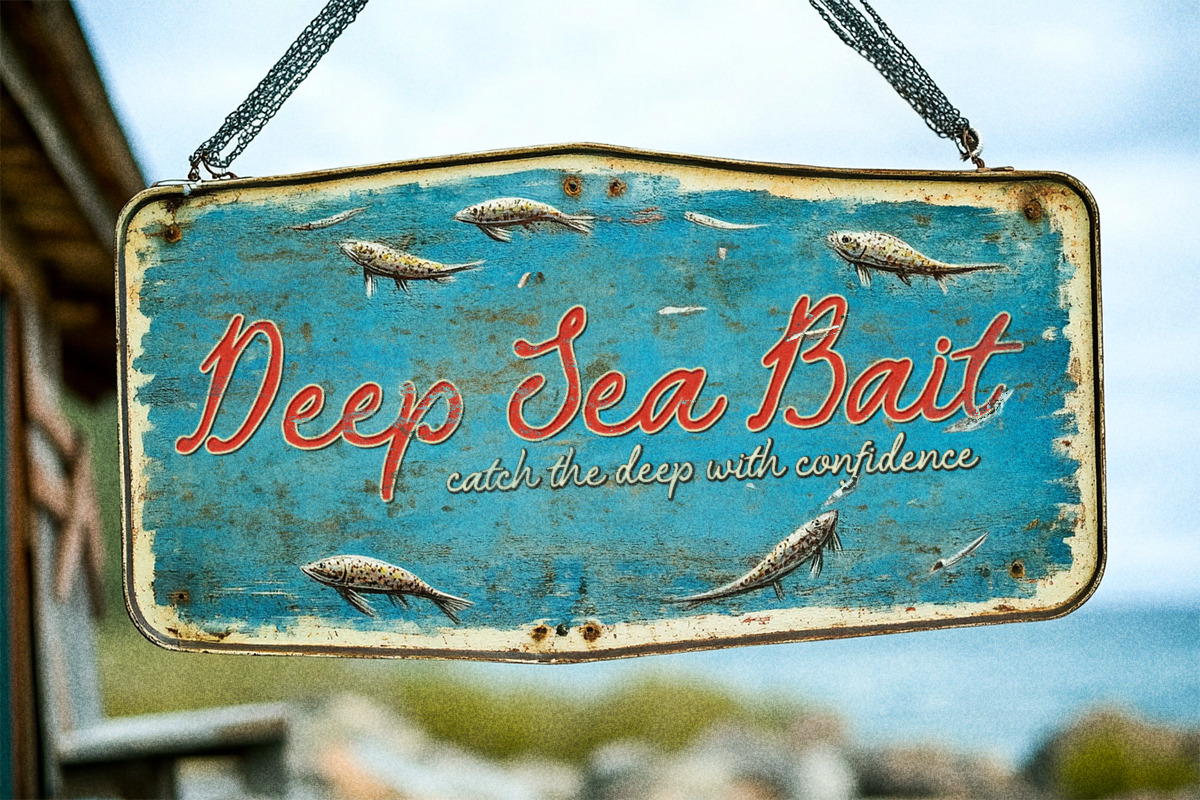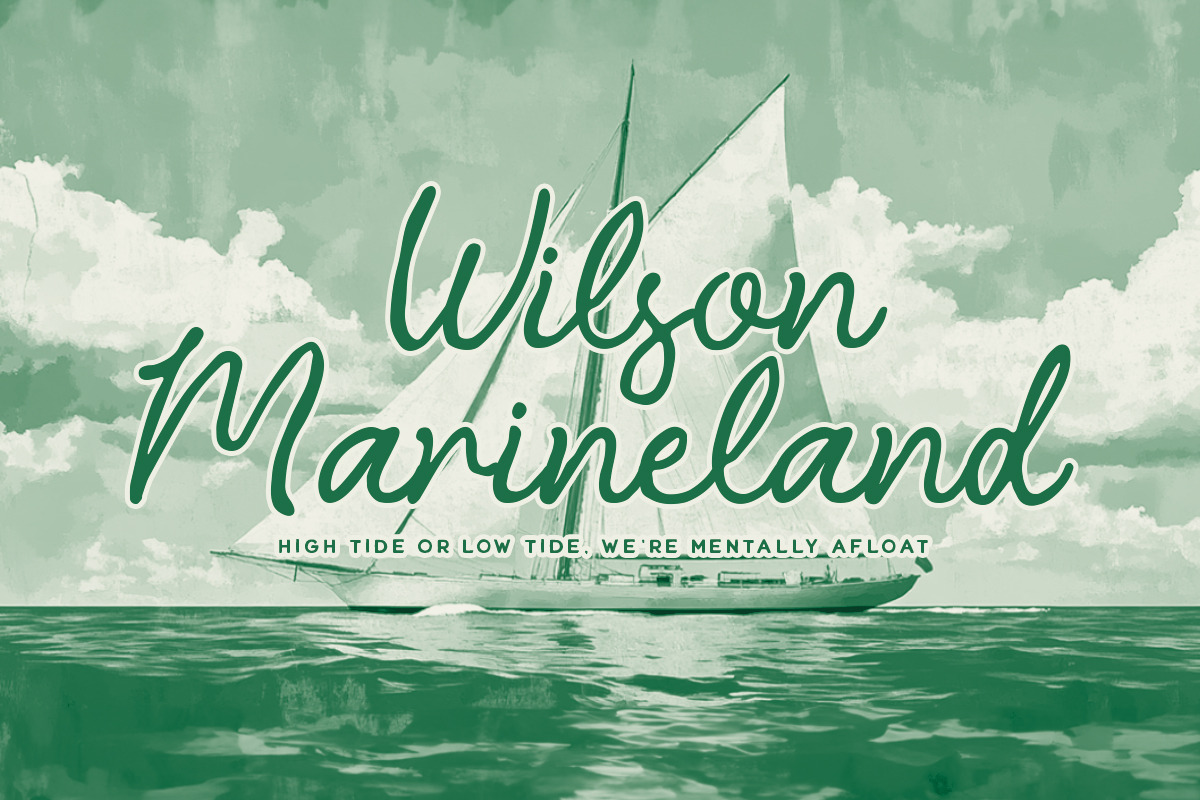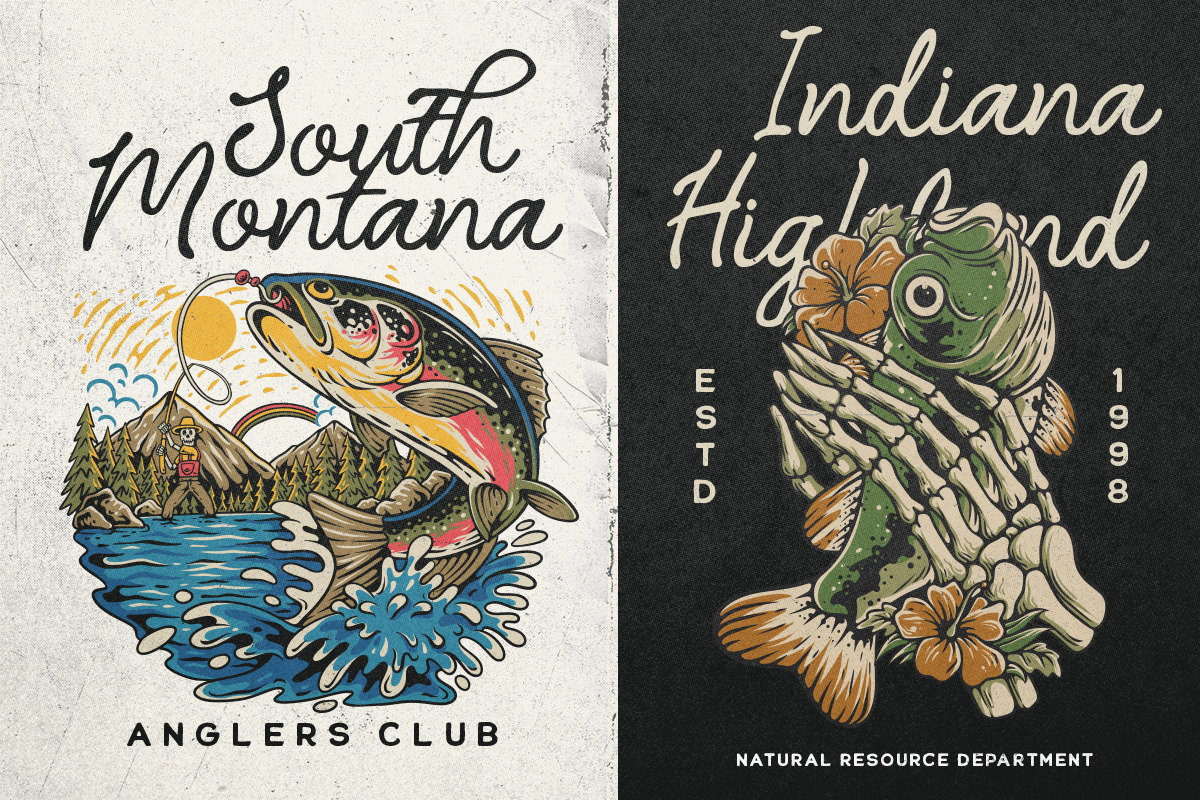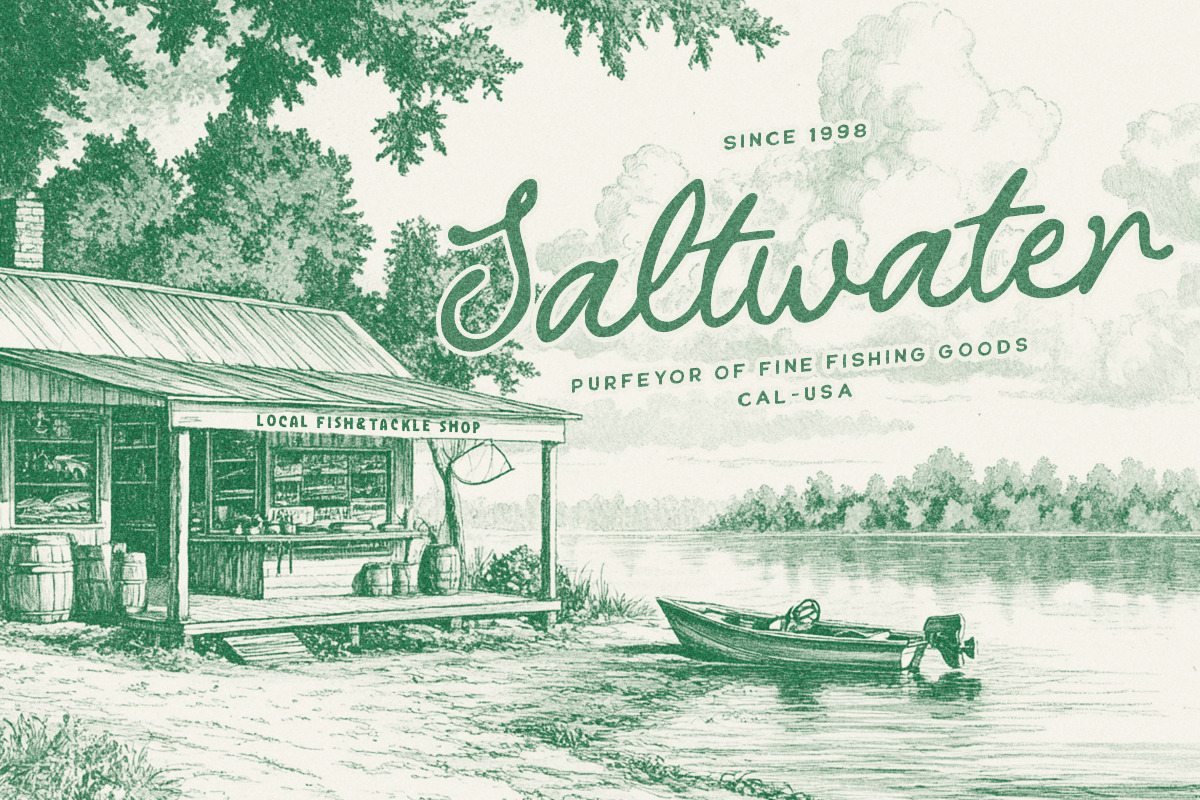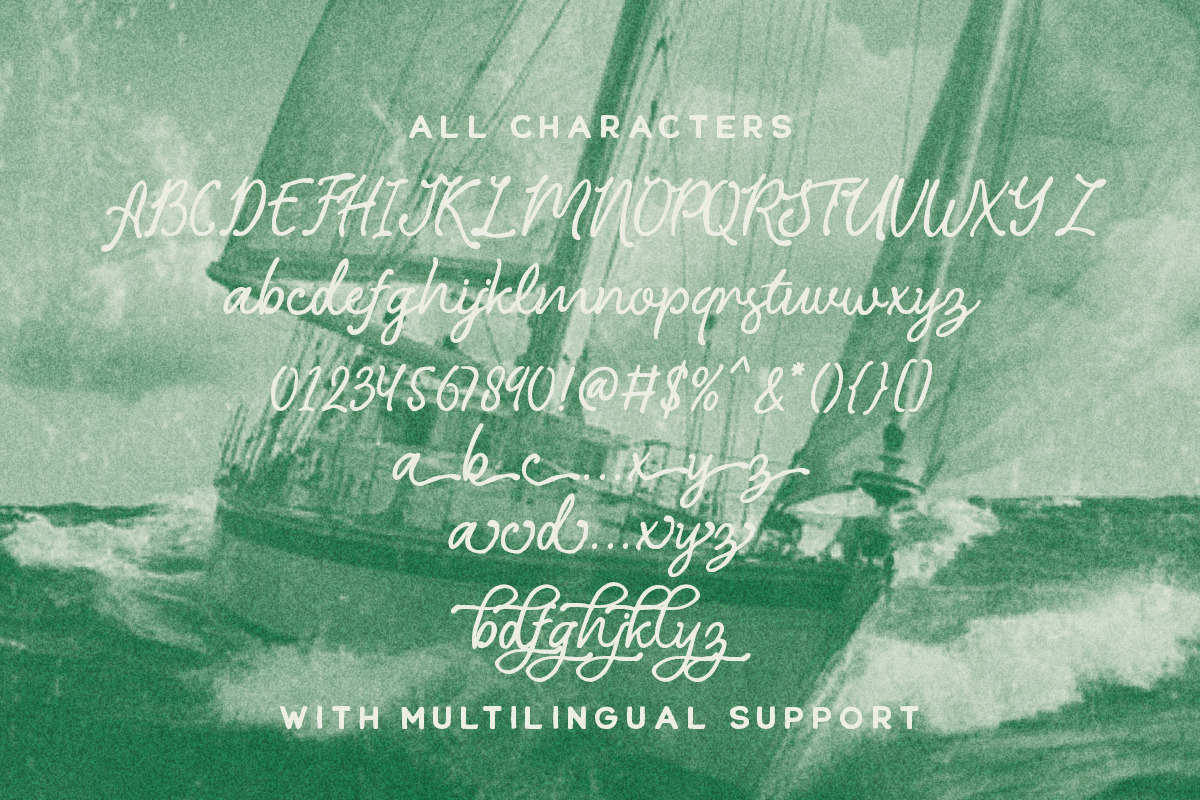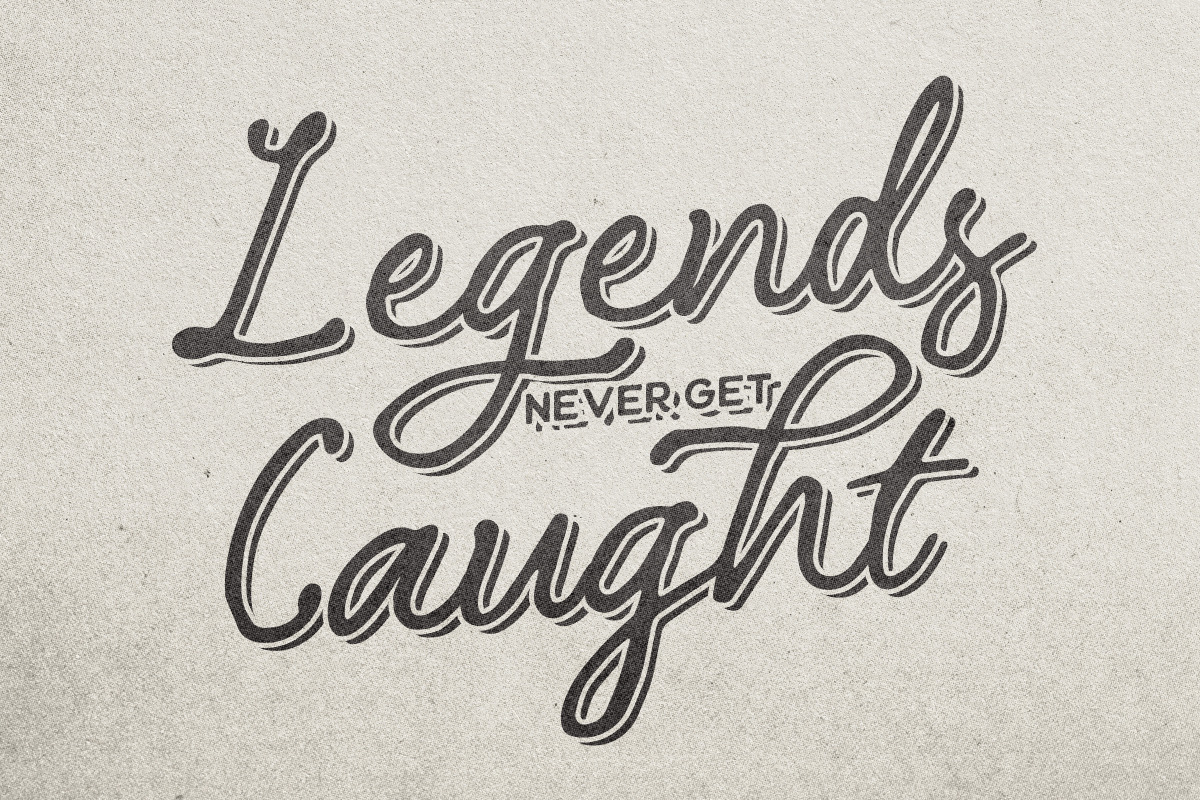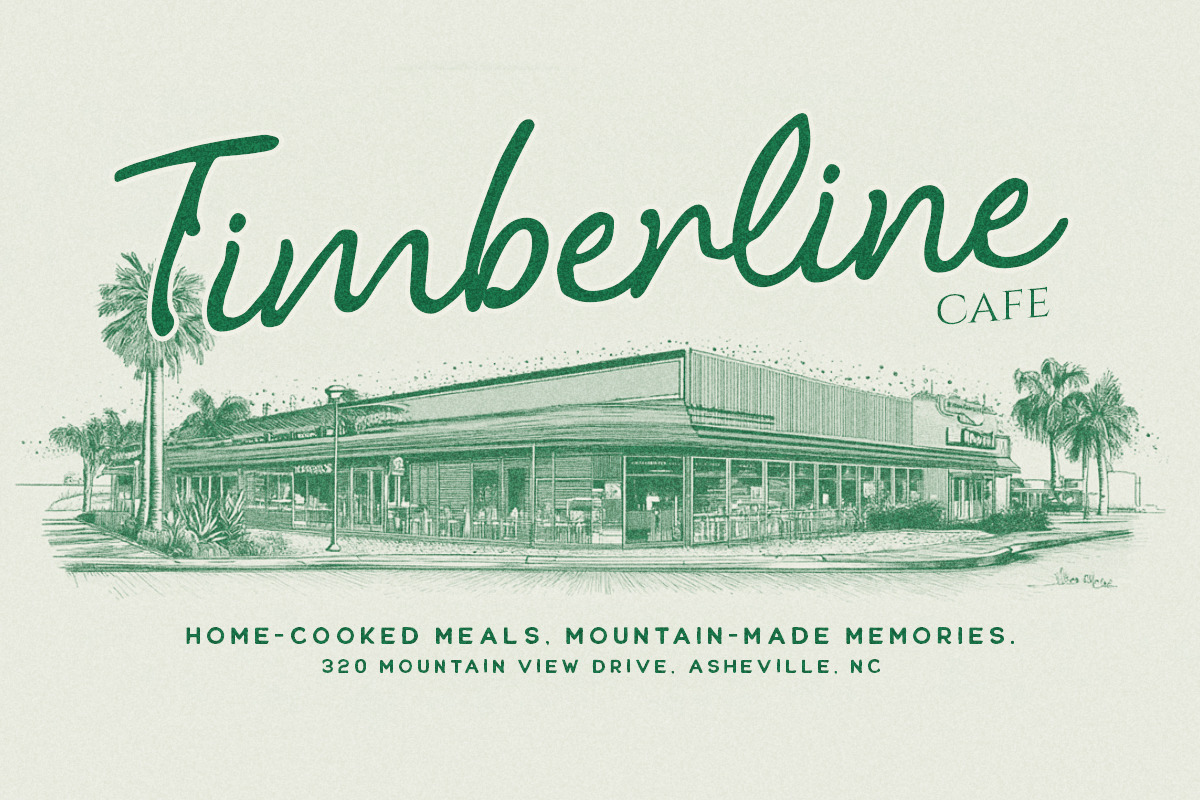
Rodlock Script
Rodlock is a vintage organic script font that captures the essence of retro charm with a natural, hand-drawn feel. Perfect for projects that need an authentic, nostalgic touch, Rodlock brings warmth and character to branding, logos, packaging, and more. Its flowing script lines blend organic curves with vintage style, making it a versatile choice for anything from artisanal product labels to retro-inspired graphics. Whether you're creating a cozy café menu or a classic brand logo, Rodlock adds a distinctive, handcrafted look that stands out.